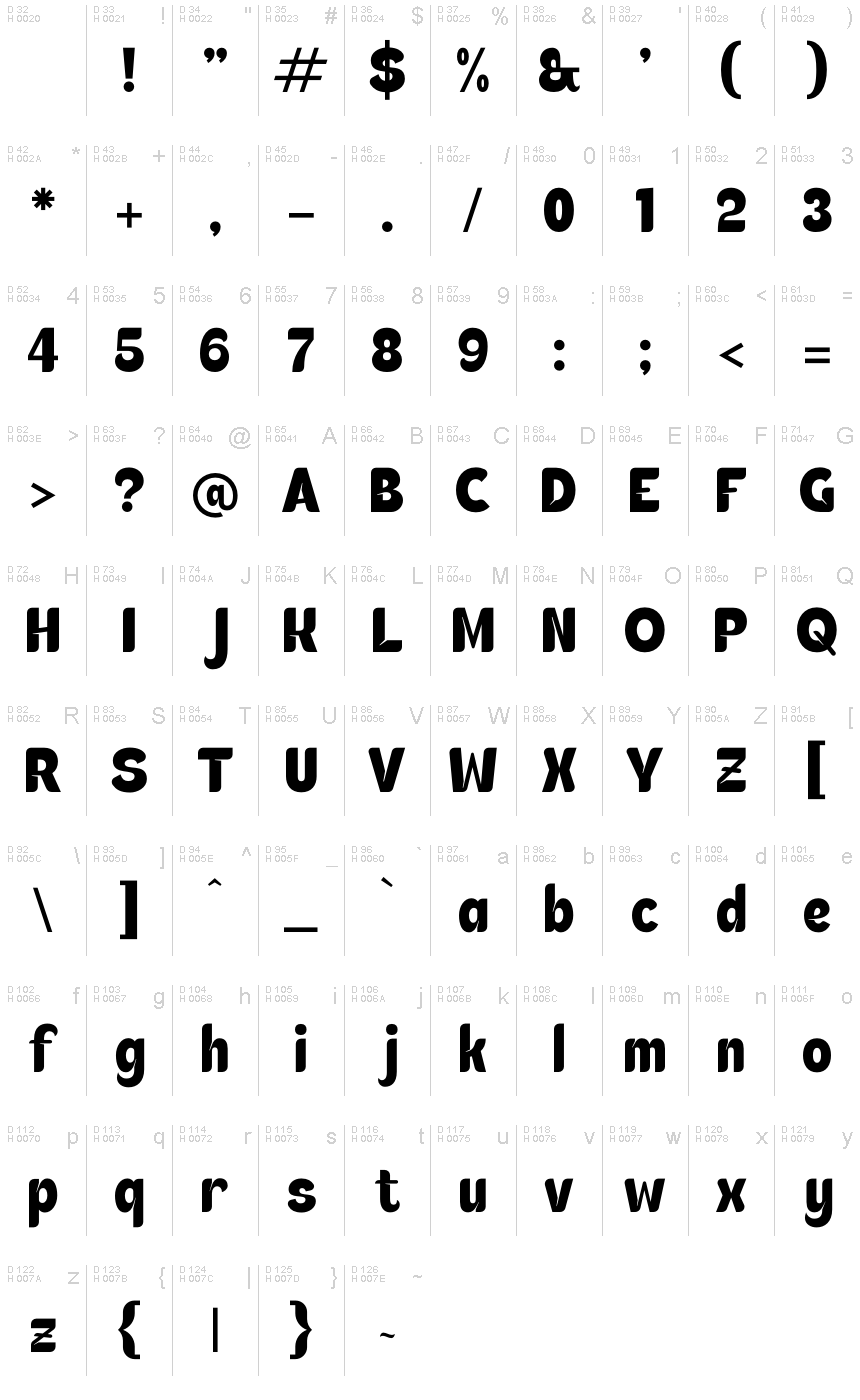
Saklifie
Saklifie font is a bold and playful display font designed by Storytype Studio. It features bold weight for a striking appearance, and is available for free for personal use. The rounded sans-serif style has smooth curves, high contrast, and thick strokes, making it feel modern yet enticing.
Because of its iconic dramatic style it can be used for logos that stick in your audience’s mind. Saklifie would also be perfect for posters or book/album covers with eye-catching graphics or even t-shirt designs to impress your community. Make an exhibition you'll never forget with professional headings and large size body headings.